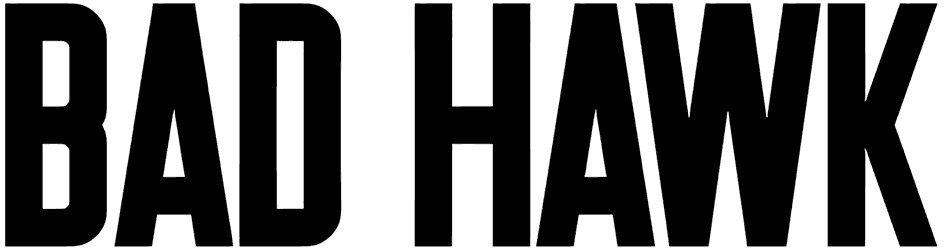
Bad Hawk Font
If you like to portray your visionary design in remarkable yet multiple ways, this Bad Hawk font would be an excellent suggestion. As a sans serif font with different styles, bold and grunge come to give you more variety and freedom to convey a sense of dynamism and approachability.
With all the benefits, it’s better to skip the number lacking. To have a resourceful and intimate project, you can try this item on that and lend your terms a memorable attitude.